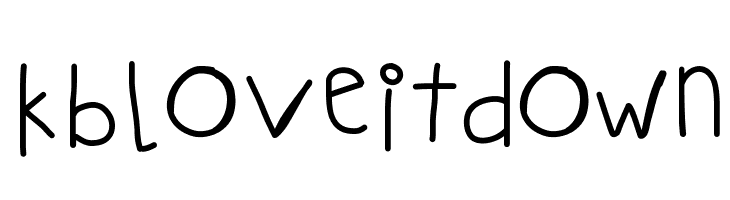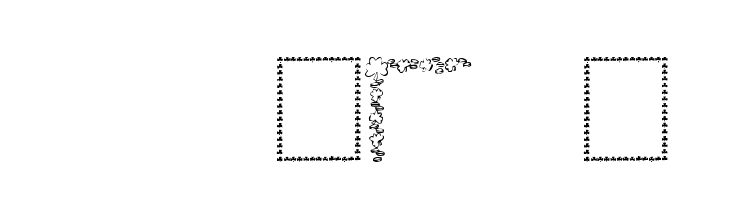
( Fonts by David Kerkhoff - www.hanodedphotography.com )
A whimsical and artistic font with playful curls and elegant embellishments.
( Fonts by Altsys Metamorphosis )
A modern, dotted font with a digital, LED display style.
( Fonts by www.kimberlygeswein.com - Kimberly Geswein )
A playful, handwritten-style font with a casual and friendly appearance.
( bumbayo.blogspot.com/ )
A bold, distressed font with a vintage, grunge aesthetic.
( Fonts by or from www.graffitifonts.net )
A playful, hand-drawn font with bold outlines and a whimsical style.